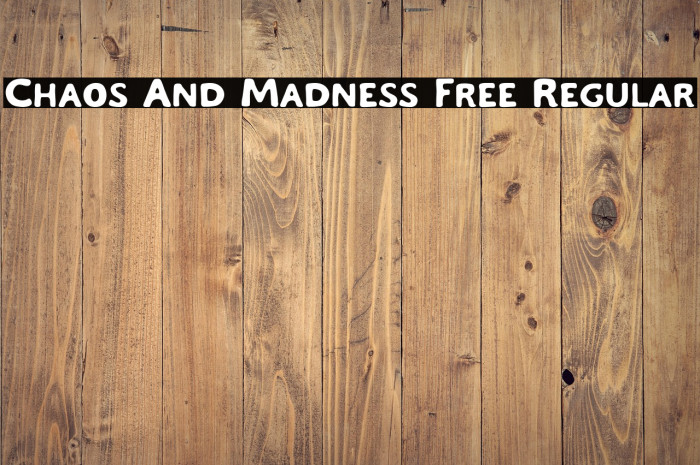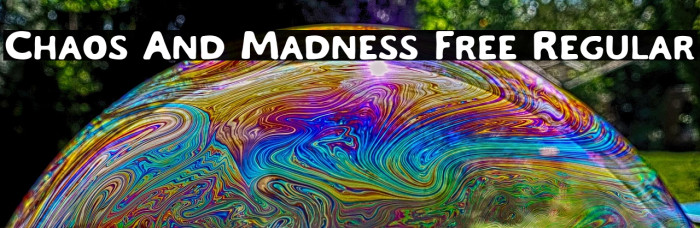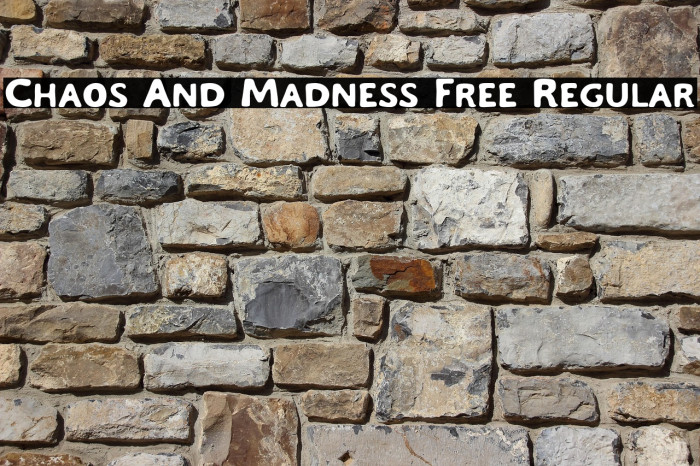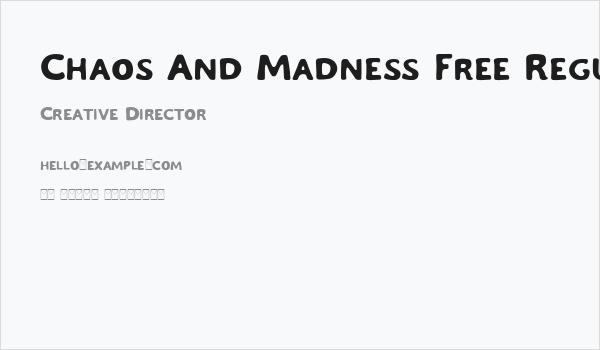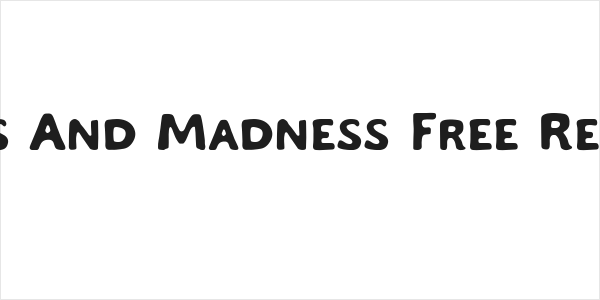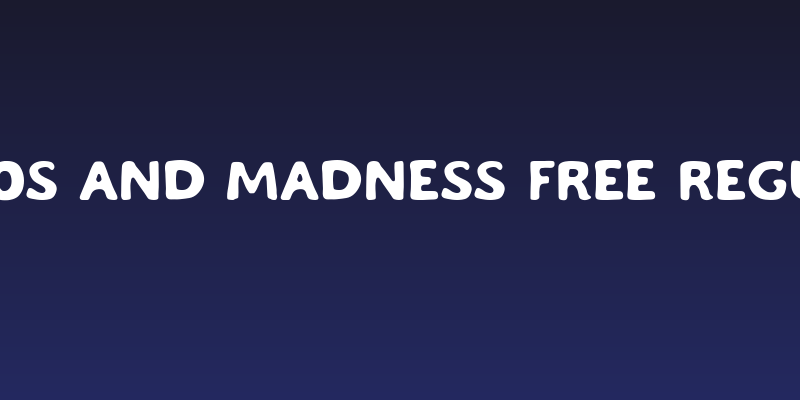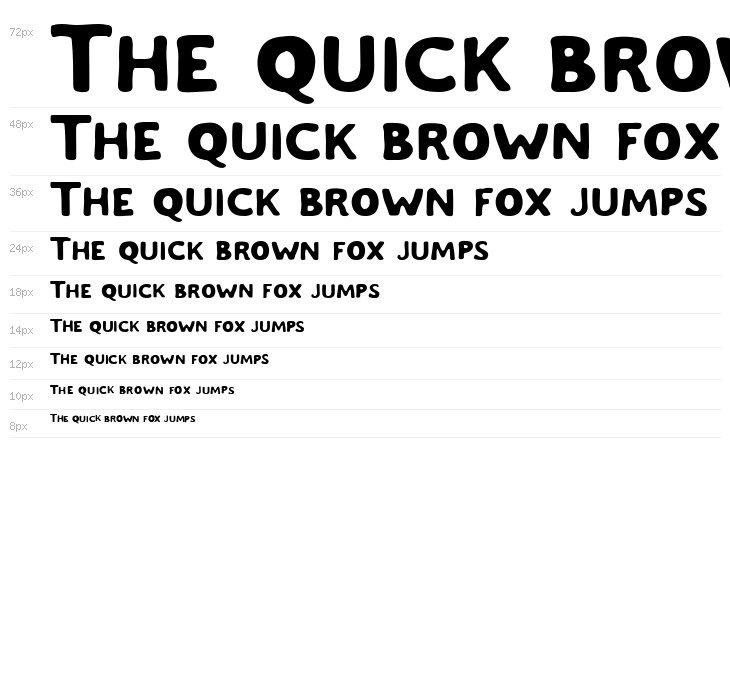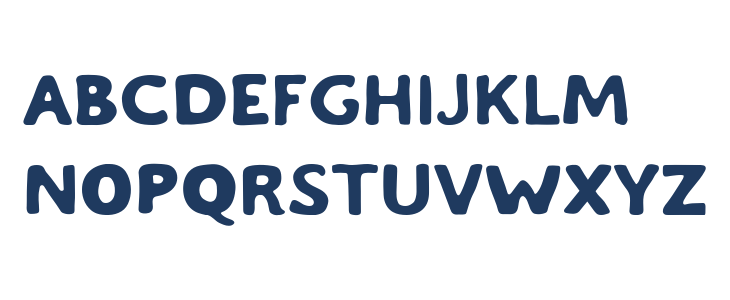
Chaos And Madness Free Regular Font
Chaos And Madness Free Regular Description
This font features a playful and bold design with rounded edges and a slightly irregular form, giving it a hand-drawn appearance. The characters are thick and substantial, providing a strong visual impact. The uppercase letters maintain a consistent height, while the lowercase letters are slightly smaller, adding to the whimsical feel. The overall style is casual and approachable, making it suitable for creative and informal projects. The font's unique character shapes and bold presence make it stand out, perfect for grabbing attention.
Overall StylePlayful, Casual
Use CaseHeadlines, Posters, Branding
Proposed ProjectsIdeal for children's books, posters, playful branding, and creative projects.